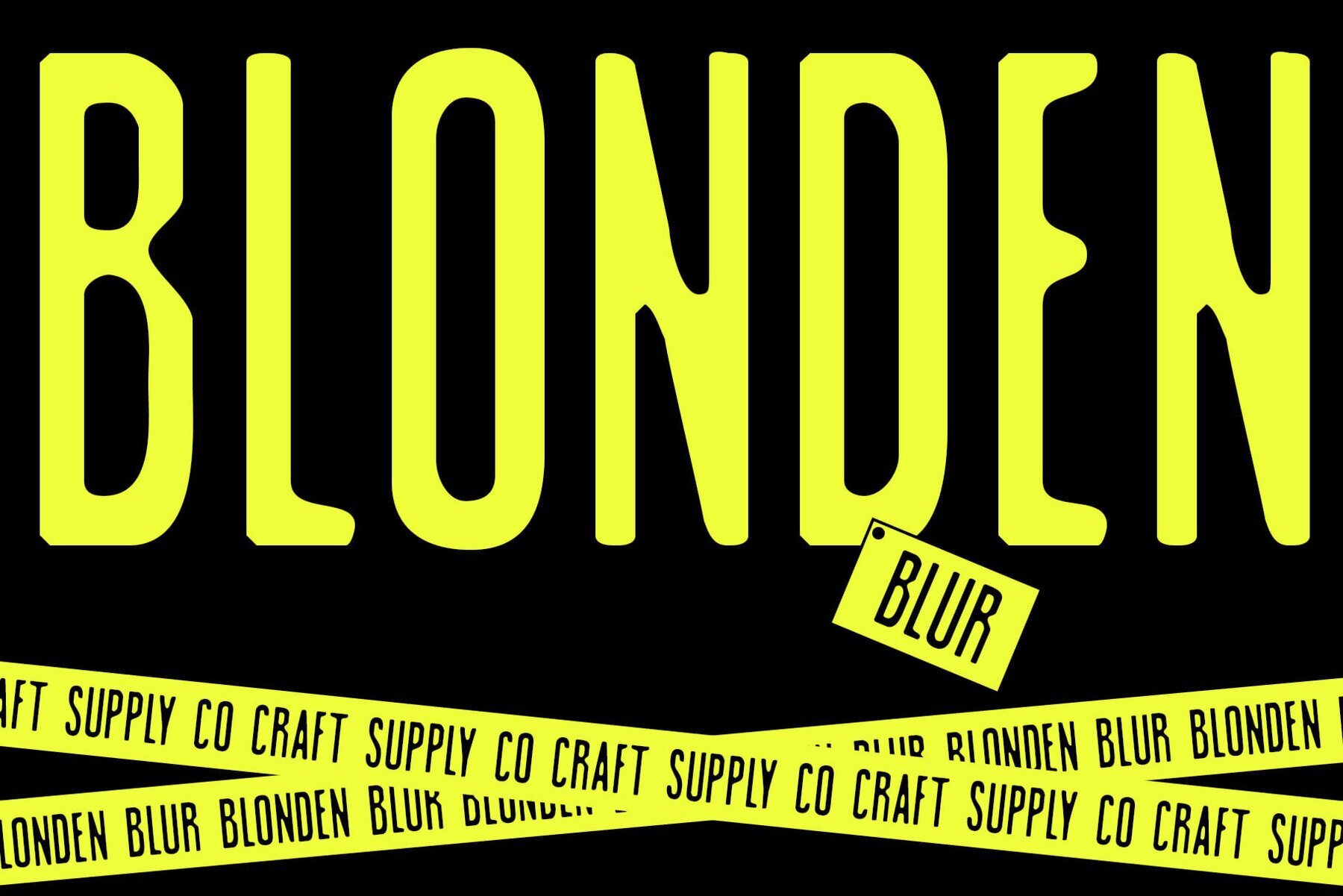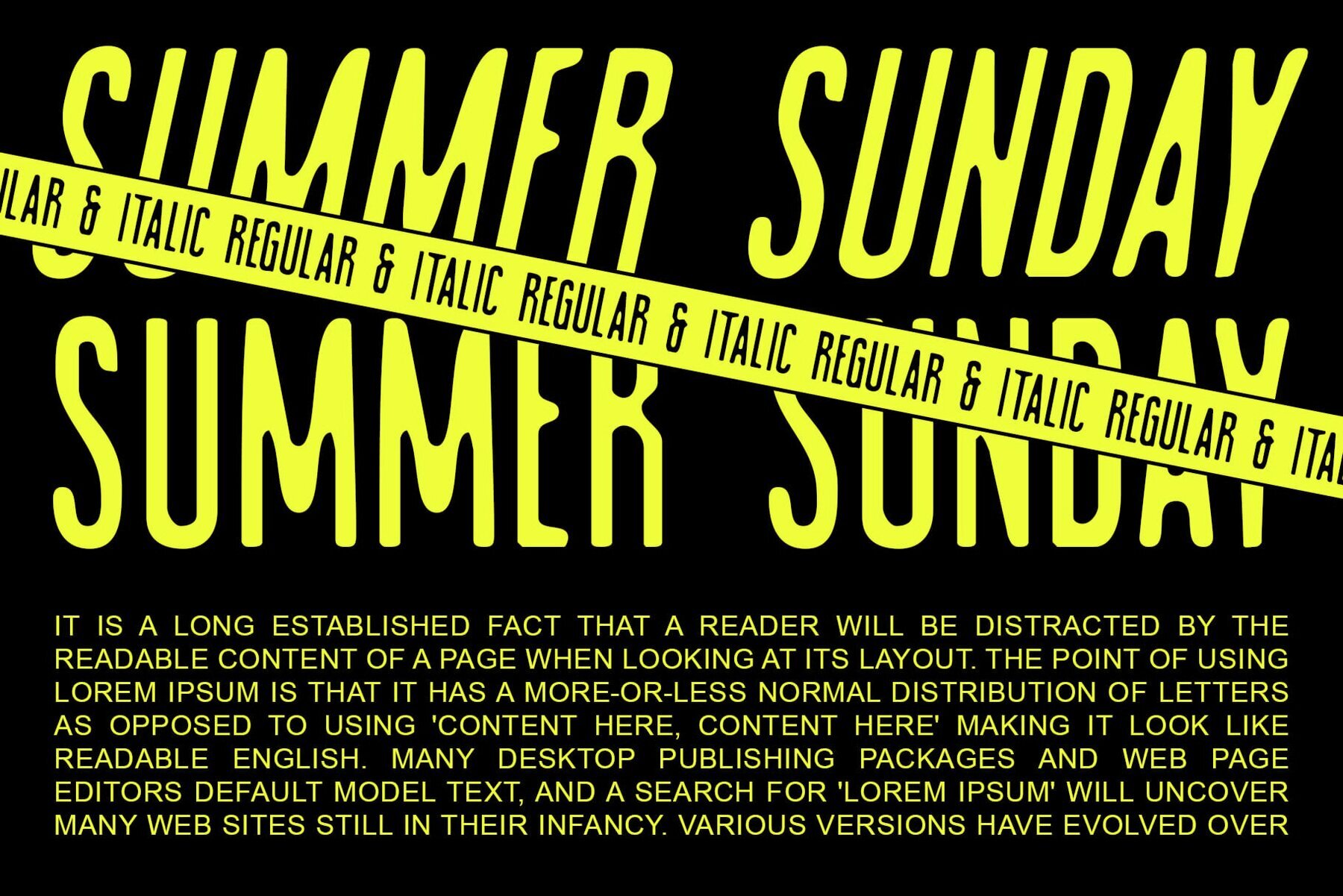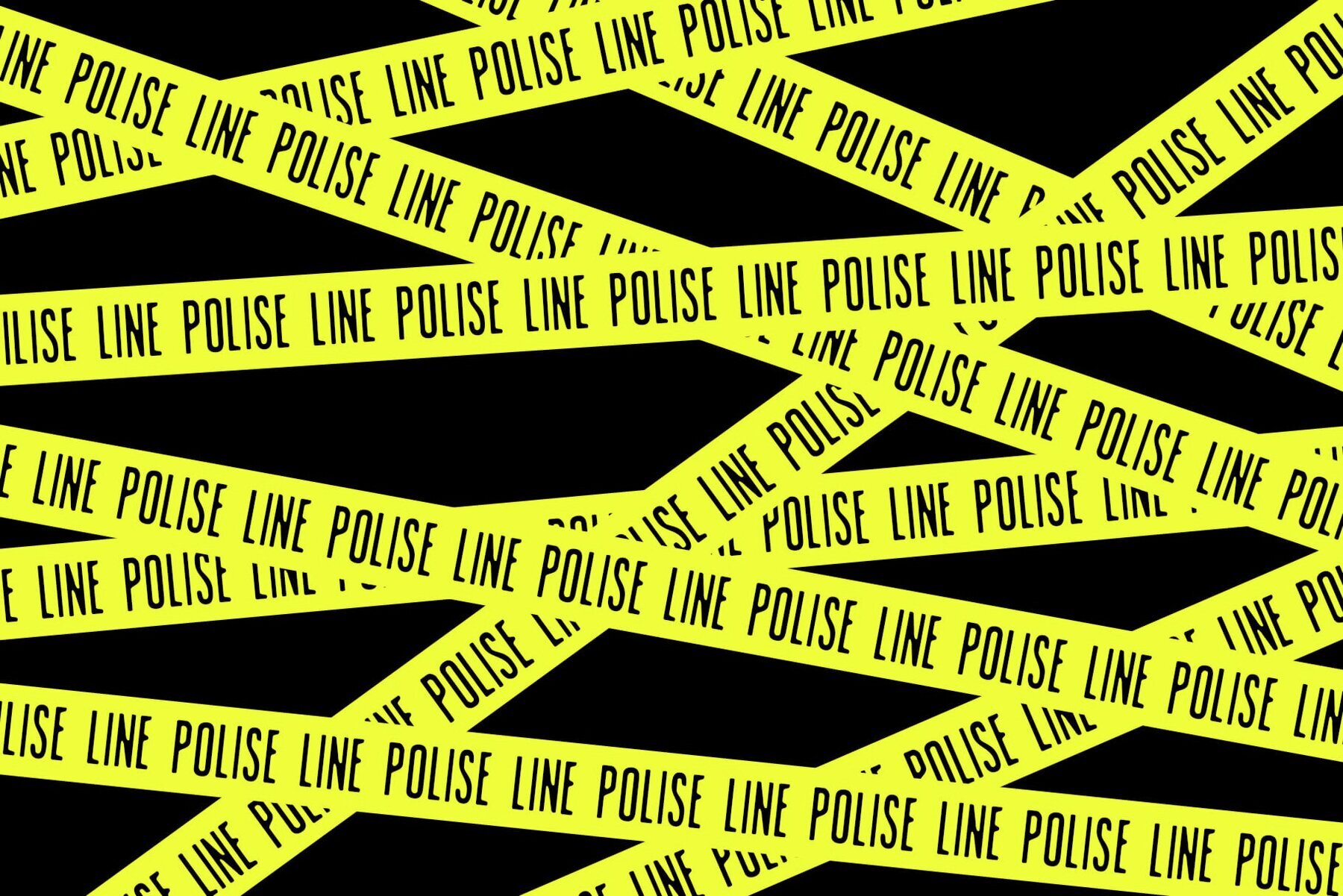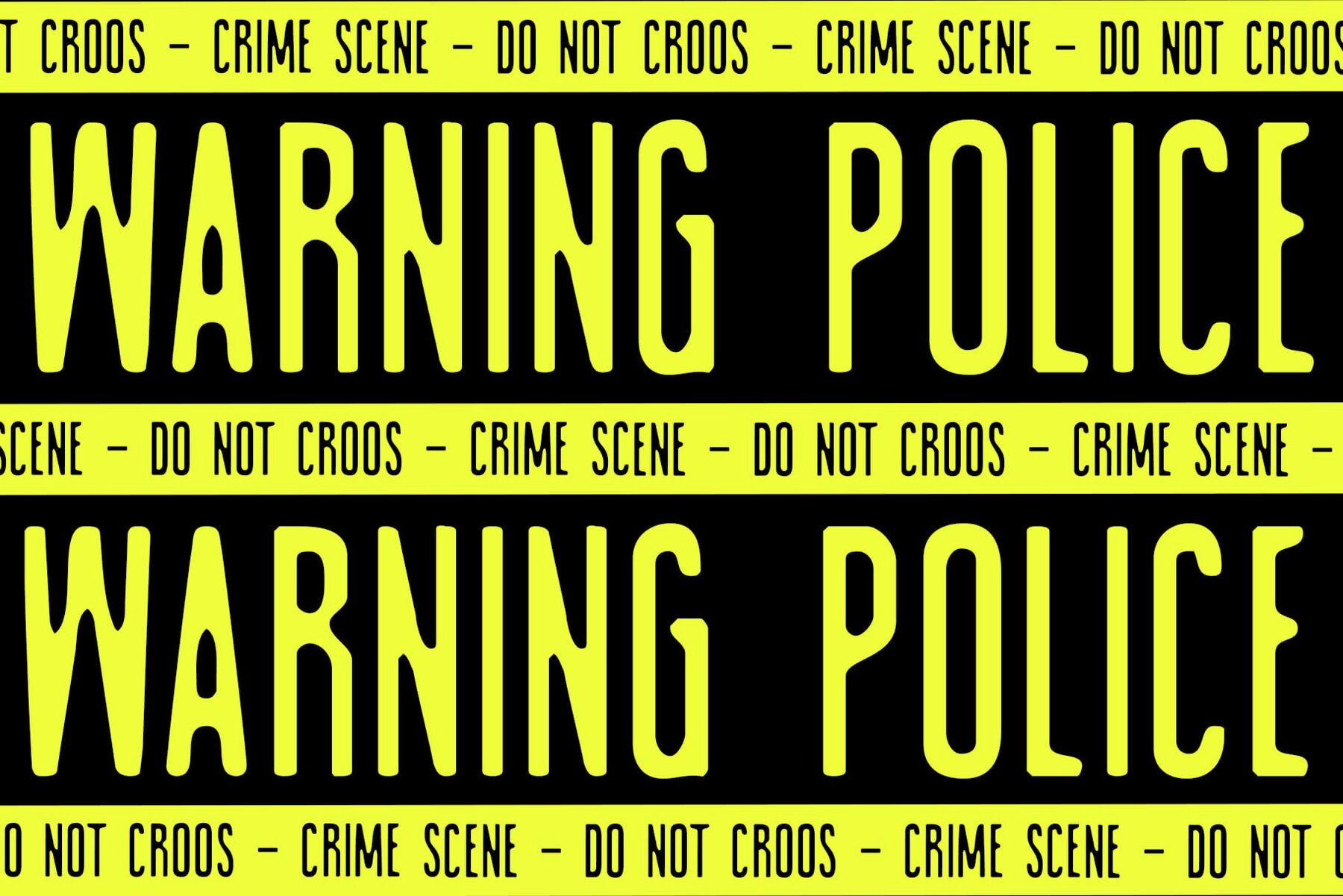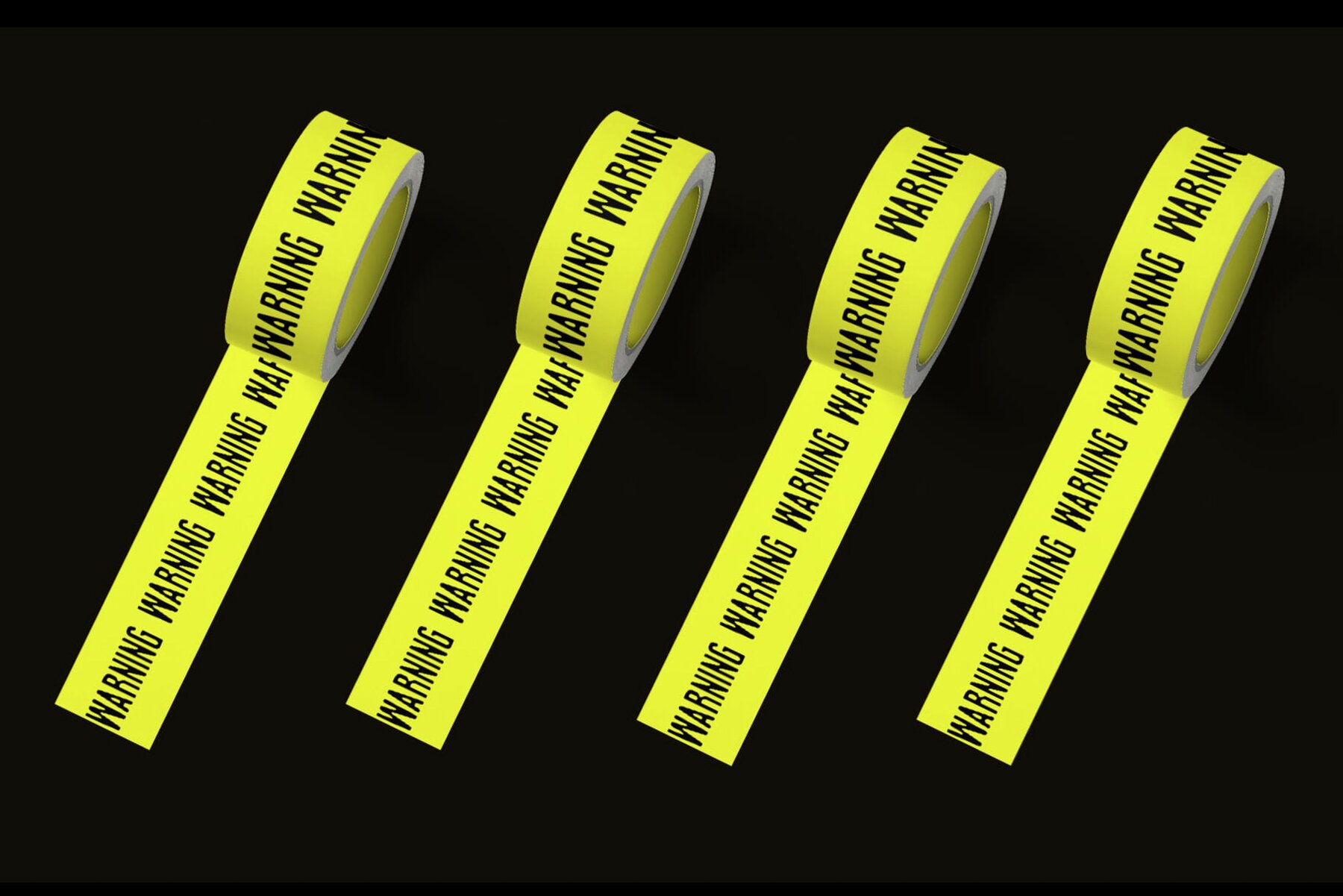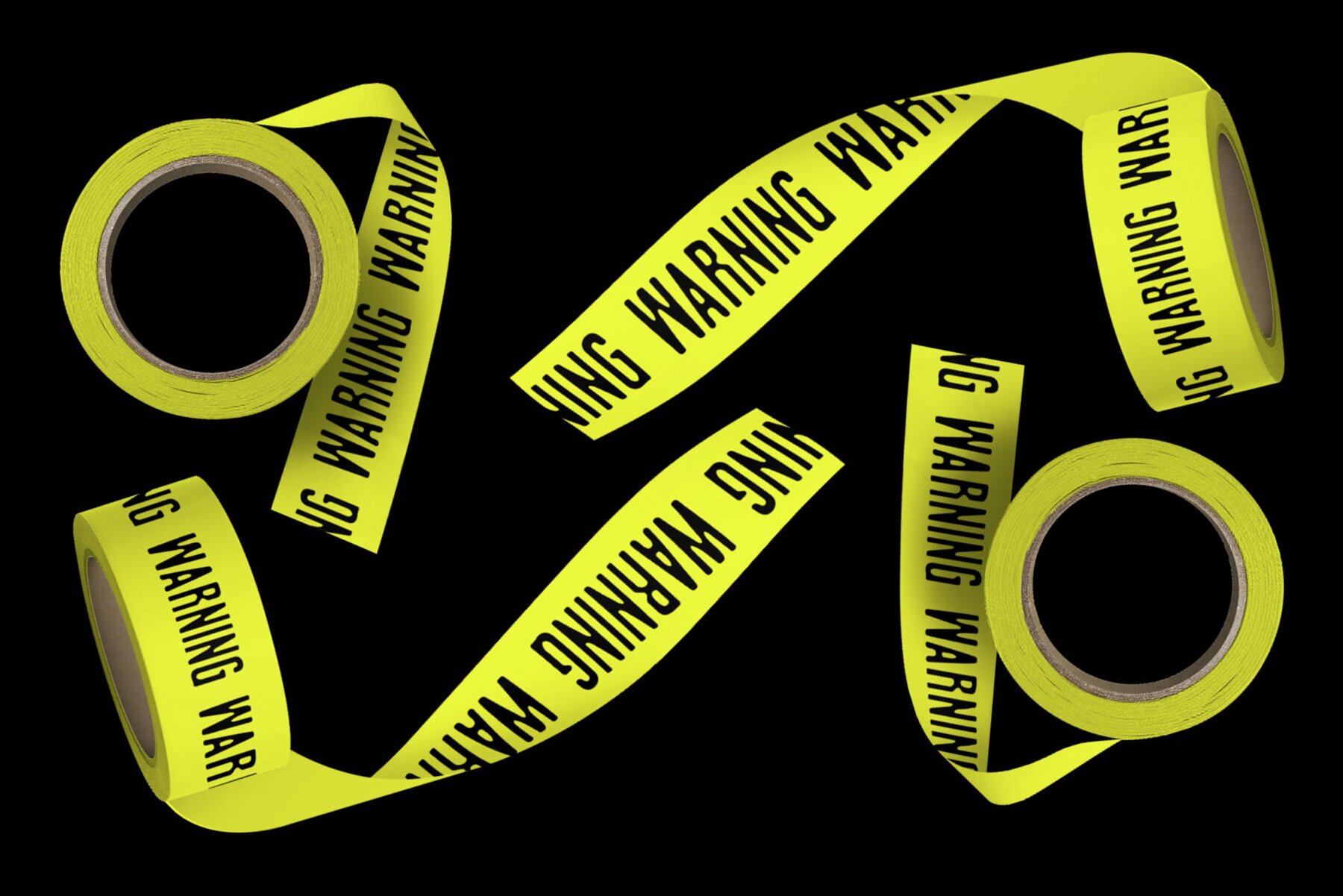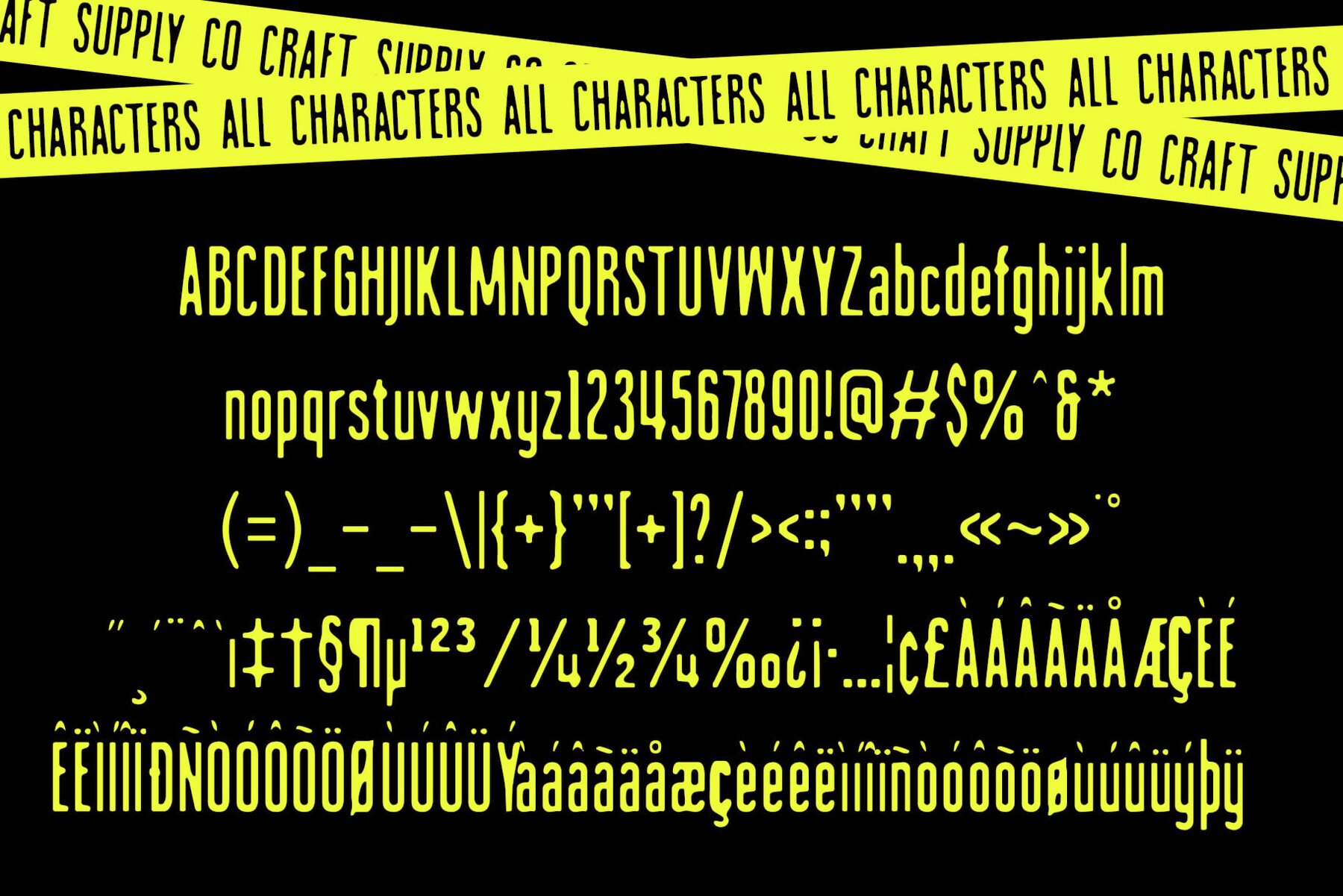
Blonden Blur Font
Blonden Blur: Sleek and Subtle Display Font Condensed Sans Serif Design Low Contrast and Blur Effect Perfect for Display Purposes Versatile Application Sleekness and Subtlety Combined Features : You can use this typeface without needing any specialized software.
Blonden Blur features a condensed sans serif design that lends a sleek and modern aesthetic to any project. Its slim letterforms make it ideal for creating impactful display text.
With low contrast and a subtle blur effect, This font offers a unique visual appeal. The lack of pronounced contrast adds to its contemporary look, while the subtle blur effect adds depth and intrigue.
This font is perfectly suited for display purposes, where its condensed form and subtle blur effect can shine. Whether used for headlines, signage, or branding materials, Blonden Blur commands attention with its understated elegance.
Despite its specialized design, This font is surprisingly versatile. It can be used in a variety of design projects, from digital interfaces to print materials, adding a touch of sophistication and modernity to any composition.
This font offers a sleek and subtle approach to display typography, with its condensed sans serif design and unique blur effect. Whether you’re aiming for a contemporary or minimalist aesthetic, This font delivers understated elegance with a modern twist.